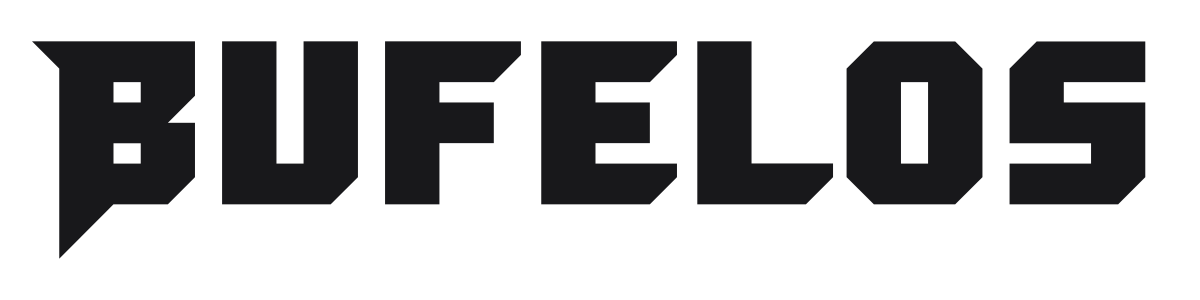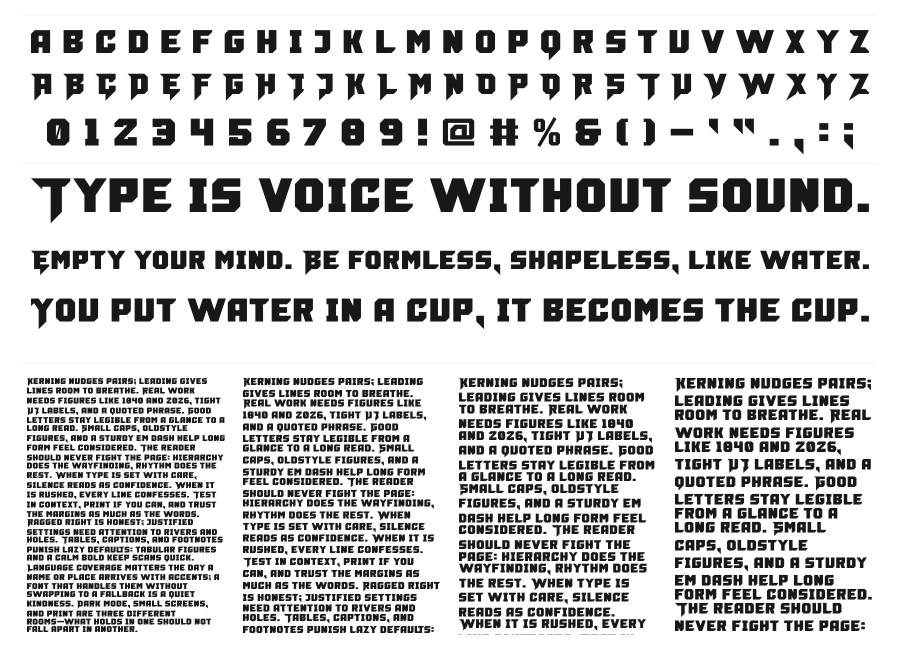
Bufelos
Bufelos is a heavy, blocky display font with a pixelated arcade sensibility and near-zero stroke contrast. Every character is built on a tight geometric grid, with thick slab serifs and squared-off terminals that give it a dense, confrontational weight. It reads loudly at poster sizes and carries strong associations with gaming, streetwear, and retro digital culture.